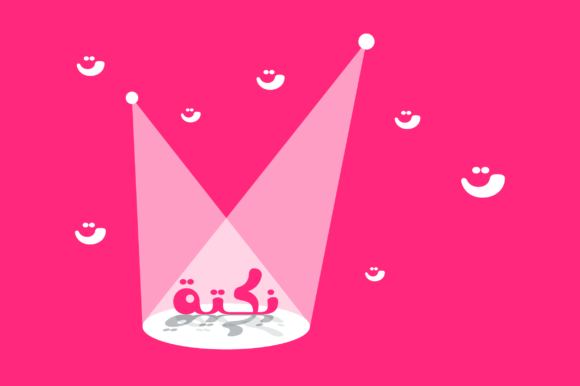
Embark on a delightful typographic journey with Nokta Font, a whimsical Arabic display font that injects a touch of humor into your designs. Created by the talented Mostafa El Abasiry, Nokta boasts a playful letterform design that is sure to leave an indelible impression on your audience.
Step into a world of visual intrigue as Nokta's unique letterforms dance across the screen, captivating the eyes with their quirky charm. Each glyph is meticulously crafted to evoke a sense of amusement, adding a touch of lightheartedness to your creative endeavors. Whether you're crafting captivating headlines, designing engaging social media posts, or creating eye-catching logos, Nokta is your perfect companion.
With Nokta by your side, you'll unveil a world of endless possibilities. Its versatility knows no bounds, seamlessly adapting to a wide range of design projects. Experiment with its playful letterforms in web design, print media, and mobile applications. Unleash your creativity and craft designs that burst with personality and humor.
Experience the Nokta difference today and elevate your designs to new heights. Embrace the power of laughter and watch as your creations come alive with a touch of whimsy. Let Nokta be your muse, guiding you toward design masterpieces that leave a lasting impact. Your audience will be captivated by the font's infectious charm, drawn into a world of visual delight.